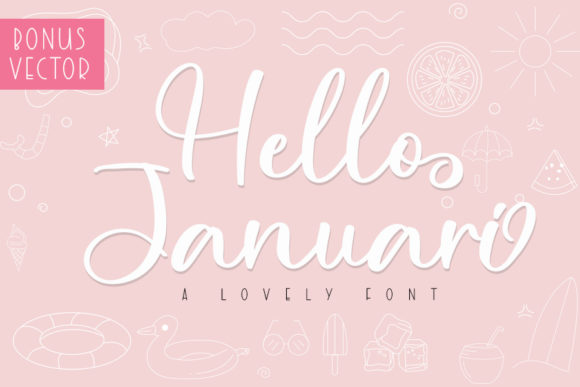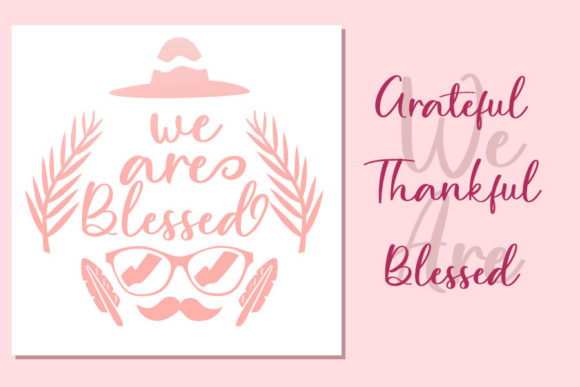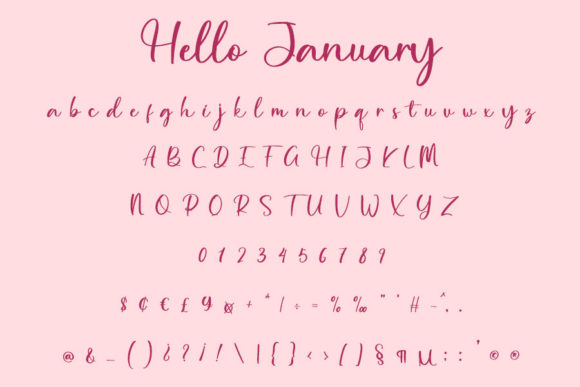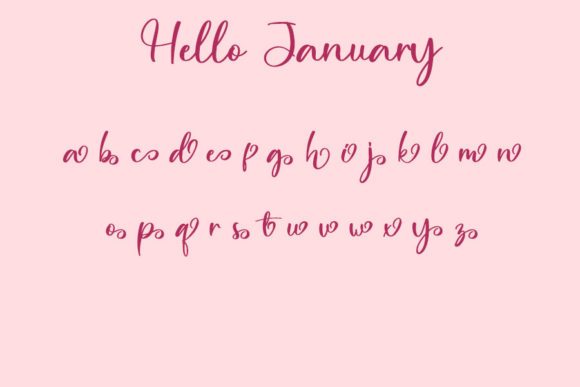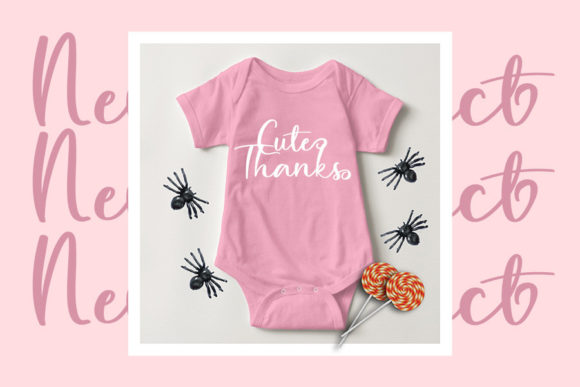
Hello Januari Font
About Hello Januari Font
Hello Januari is a romantic and sweet handwritten font with characters that seem to dance along the baseline. It will add a luxury spark to any design or project that you wish to create!